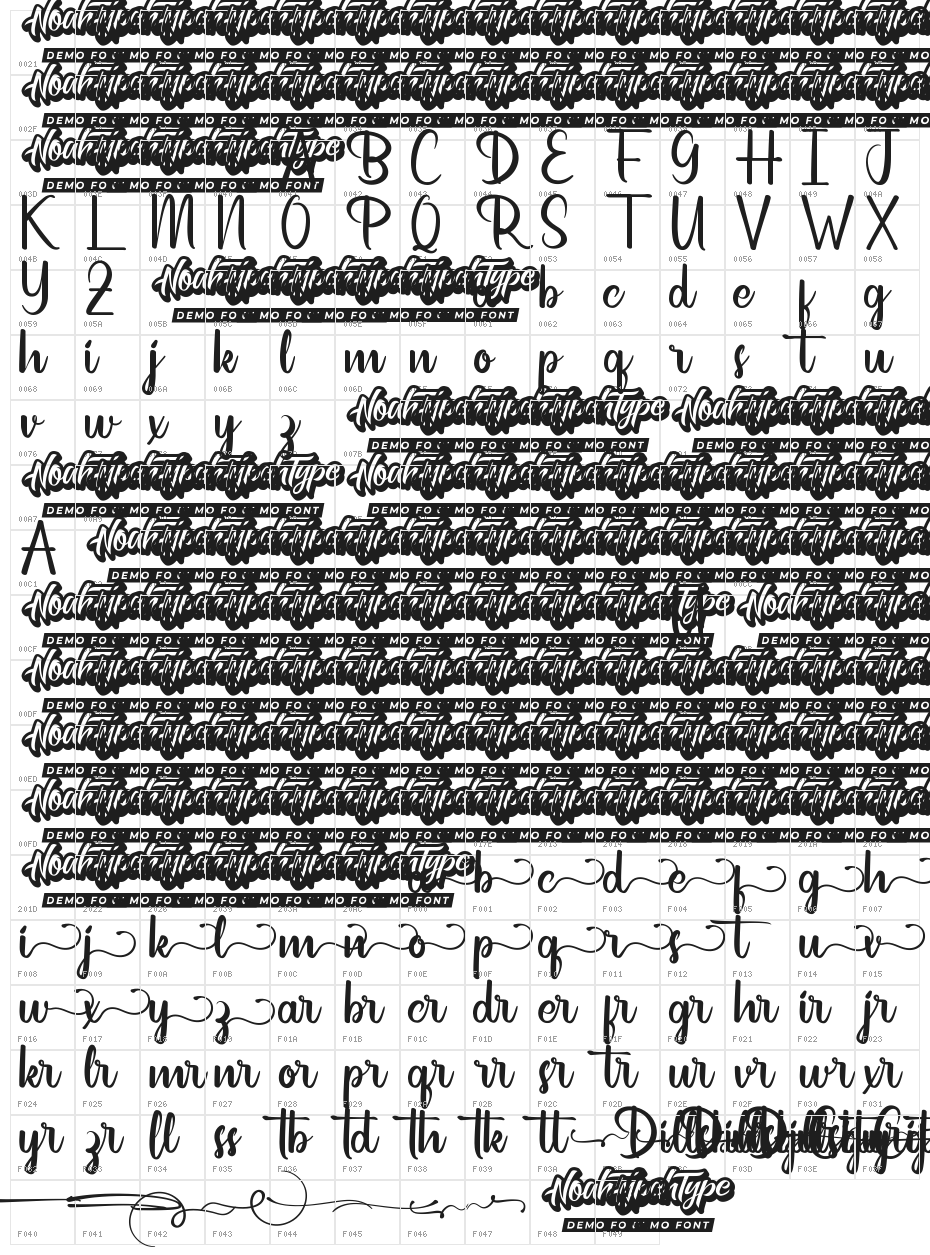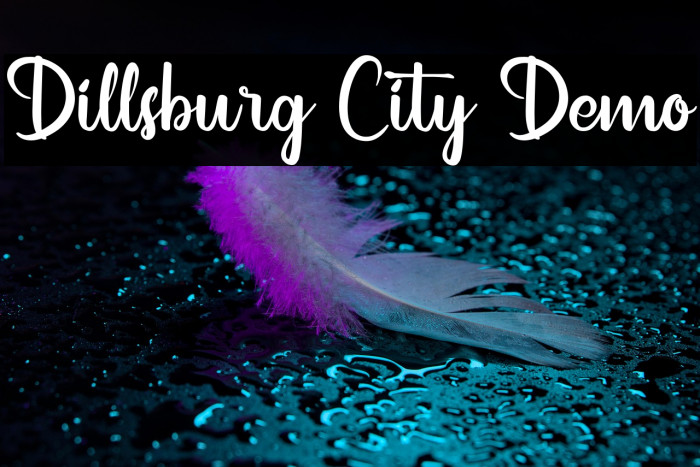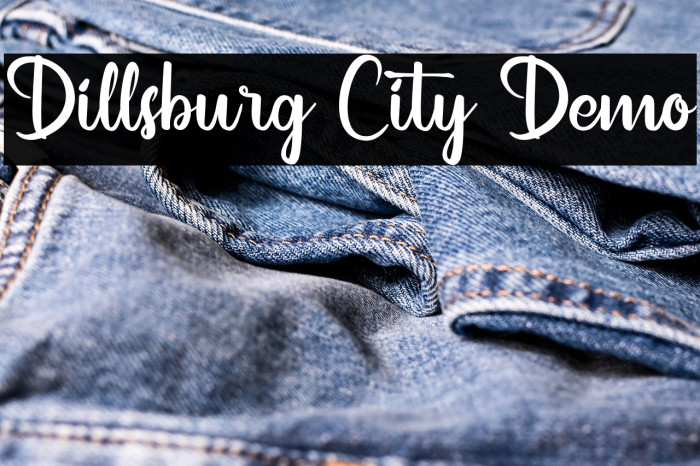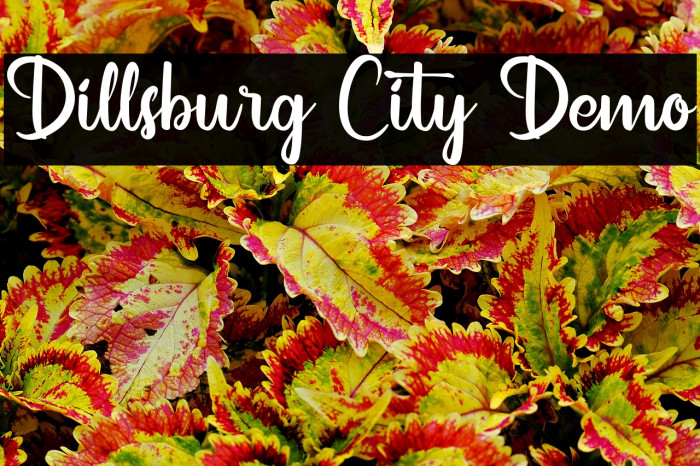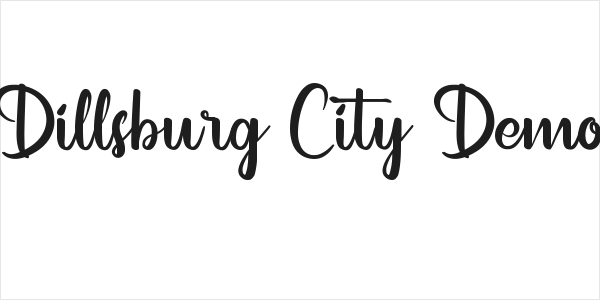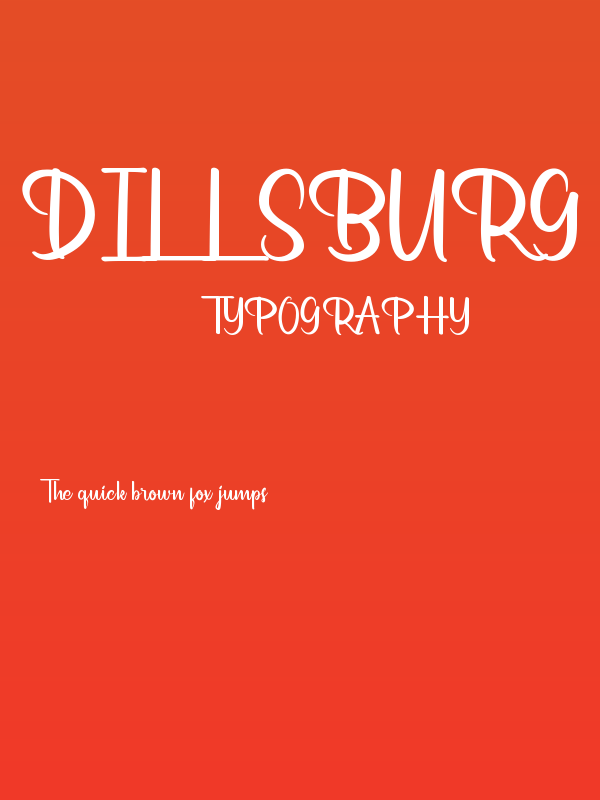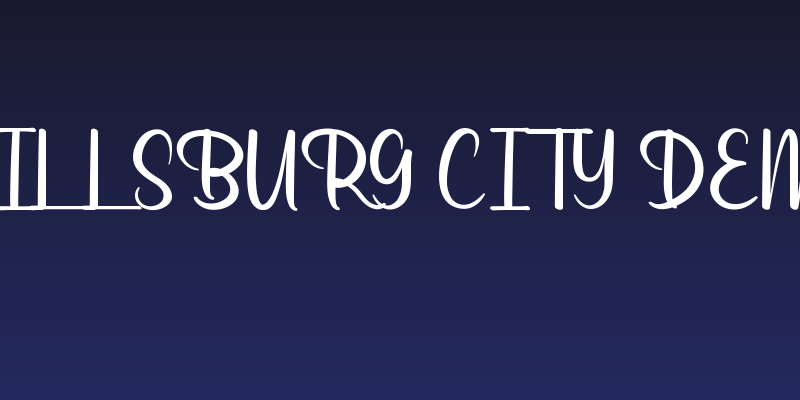
Dillsburg City Demo Font
Dillsburg City Demo Description
This font features a playful and dynamic script style with a modern twist. The uppercase letters are tall and slender, with a slight slant that adds a sense of movement and fluidity. The lowercase letters are more rounded and feature elegant loops and curves, creating a harmonious balance between the two cases. The characters are connected in a way that mimics natural handwriting, giving it a personal and approachable feel. The strokes are bold and consistent, providing a strong visual impact. This font is versatile and can be used to convey a sense of creativity and friendliness.